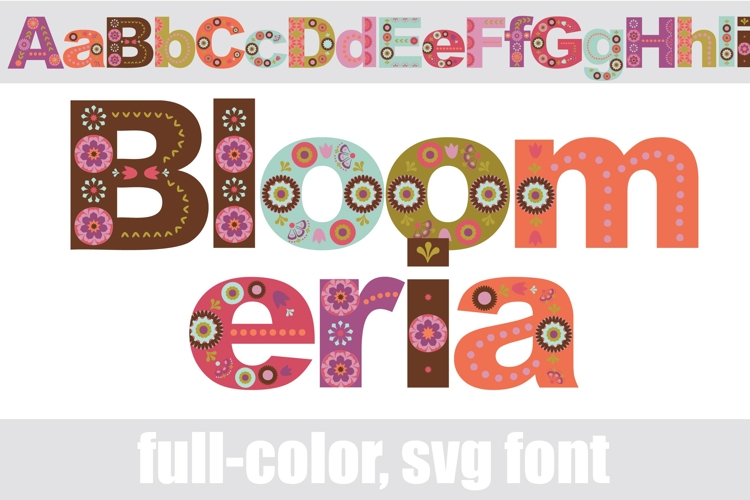
Bloomeria Color Font
This full-color, font is floral sans serif font in a bright but earthy color palette. There is an alt case of additional colors of each letter that you can access through your system's character map.